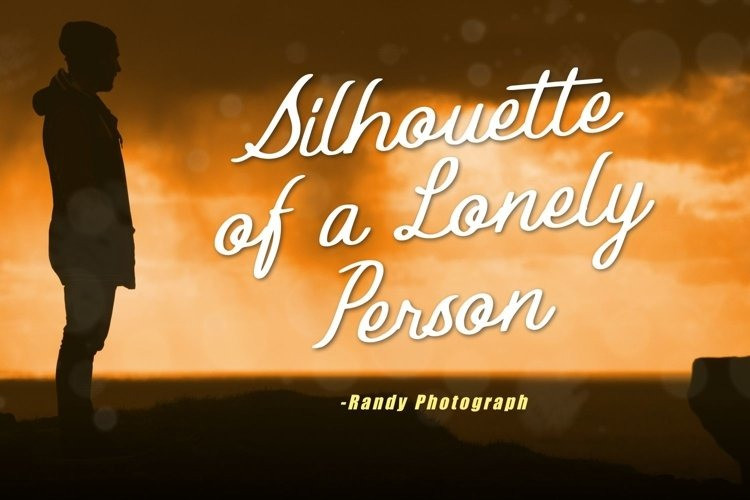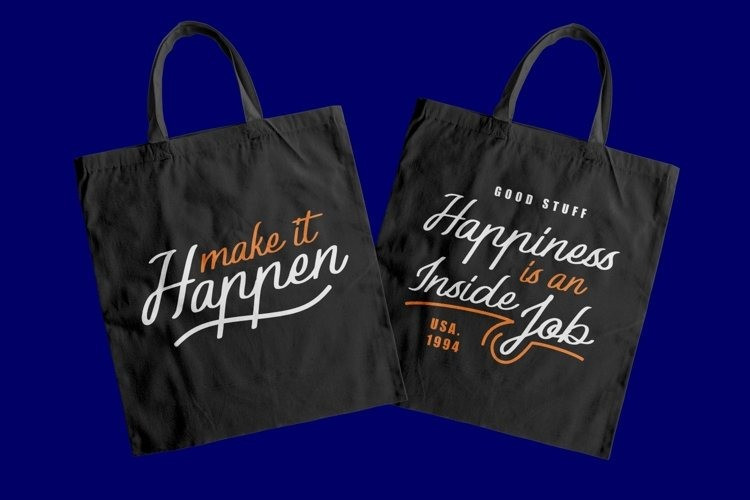
Shallow Thoughts Script Font
Shallow Thoughts is a modern script typeface created to enhance your designs. This font offers a simple yet stunning style with support
Uppercase, Lowercase, Number, Symbol, Ligature, Multilingual, Alternative Style, SS01, ss02, ss03, and ss04.
Shallow Thoughts very suitable for event titles, t-shirt design, posters, web, banner, book covers, social media, and other designs. Compatible with design studios such as Photoshop, Affinity Design, Adobe Illustrator or Silhouette. It makes it great for creative projects,